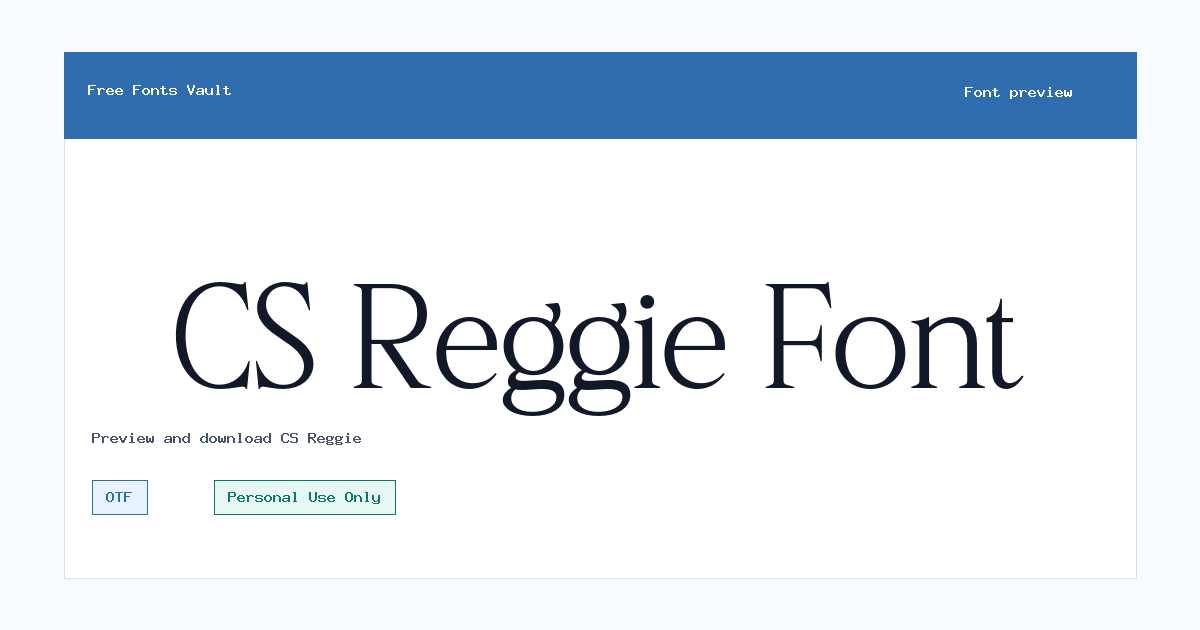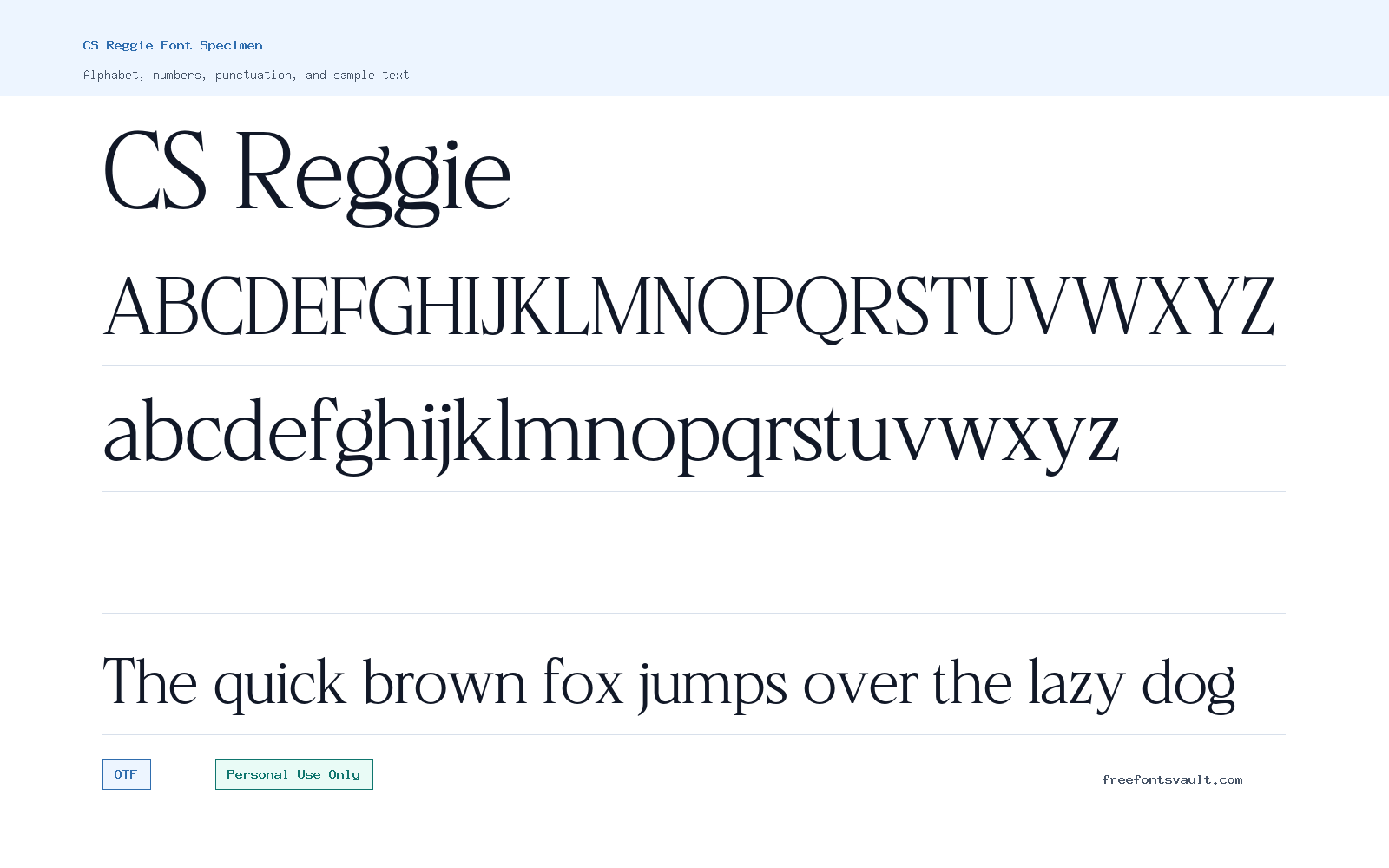
CS Reggie
CS Reggie is a serif font family with a Regular style in OTF format. It is best approached as a personal-use display or text font to test in previews before deciding whether it fits your project.
About CS Reggie Font
CS Reggie has a serif identity, which means it can bring a more traditional, editorial, or polished feel than a plain sans serif. Since the downloadable file is the Regular weight, it is a good idea to test it in the exact words you plan to use: a short title, a quote, a name, or a few lines of paragraph text. Serif fonts can change character quickly depending on size, spacing, and background, so the preview tool is the safest way to judge its balance.
Use CS Reggie for personal designs where a clean serif tone makes sense, such as invitations, social graphics, personal branding drafts, mood boards, printable quotes, blog images, or portfolio mockups. If you want to use it for a logo, product label, paid design, client work, advertising, merchandise, or any other commercial project, review the license terms first and get the correct permission from the rights holder. For better readability, try generous line spacing in longer text and pair it with a simple sans serif when you need contrast.
- Regular 400 style for straightforward serif typesetting
- Personal invitations, quotes, posters, and social media graphics
- Testing serif headlines, names, short text blocks, and design mockups
What style of font is CS Reggie?
CS Reggie is identified as a serif font. Use the preview to check whether its Regular style works for your title, paragraph, or design layout.